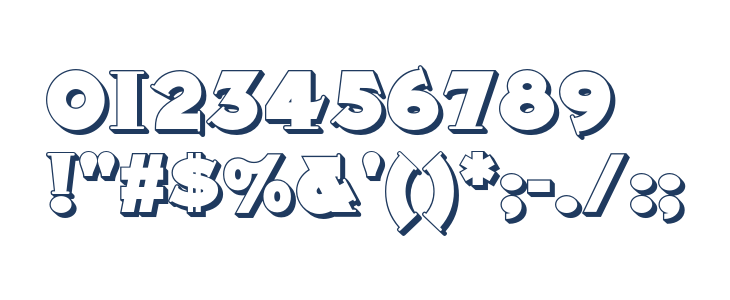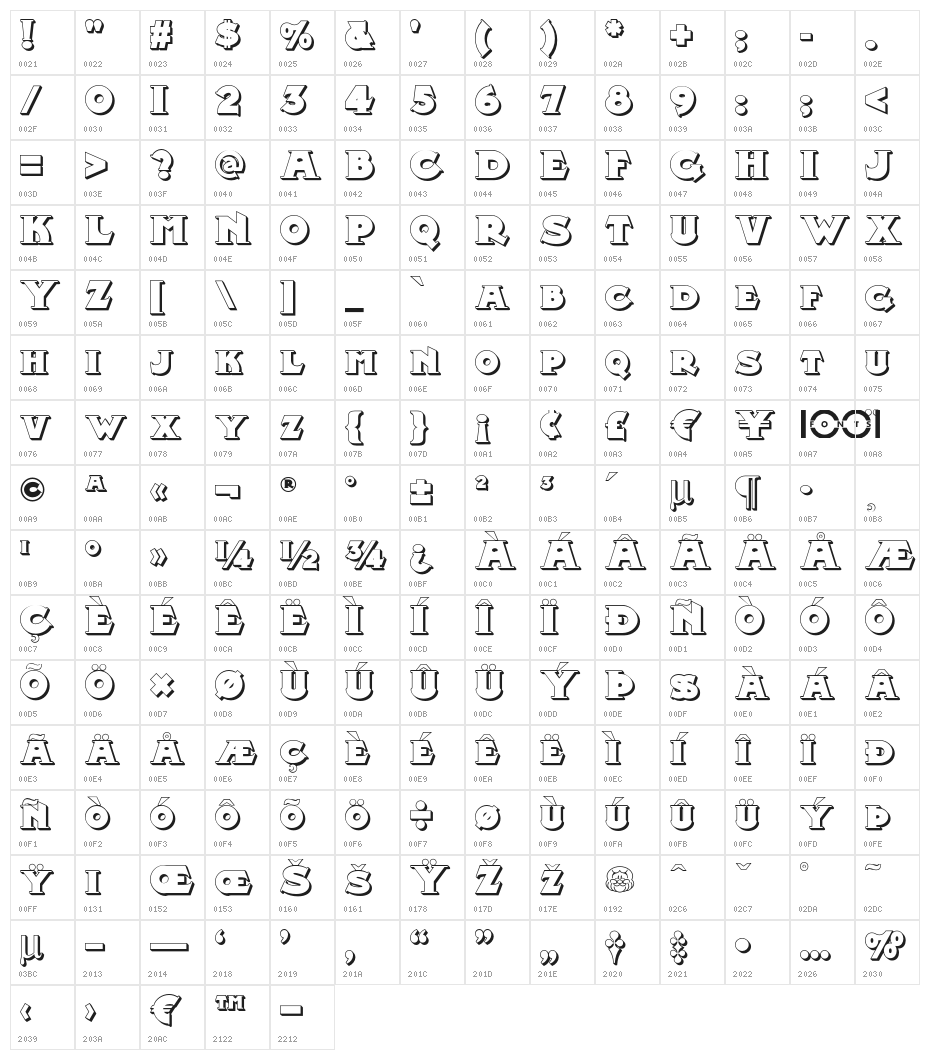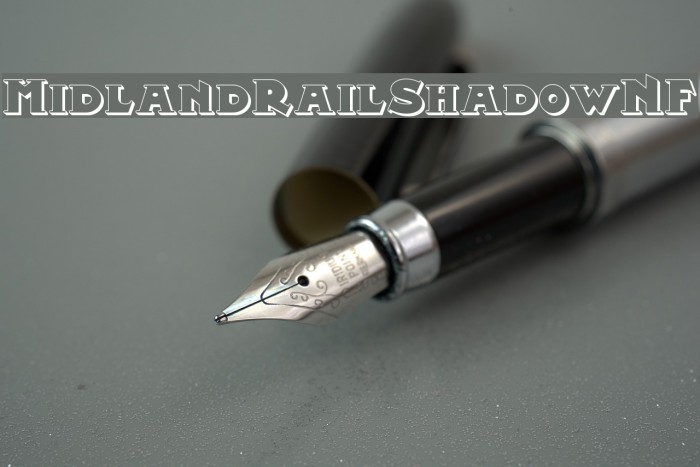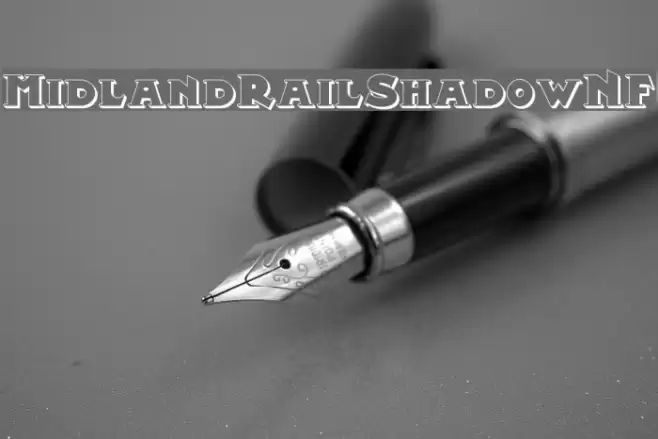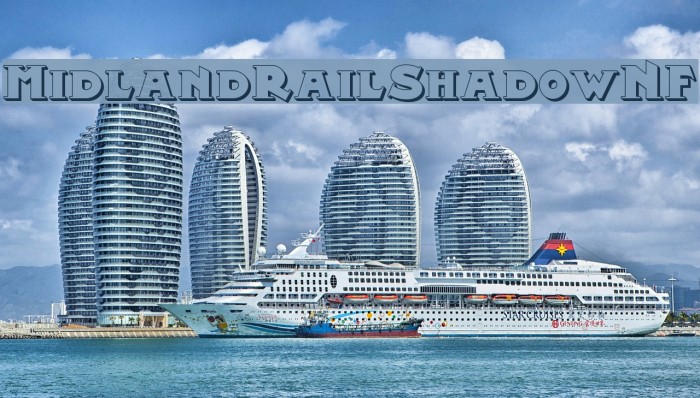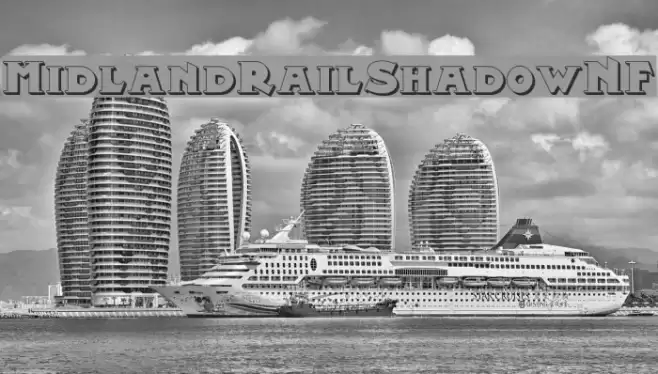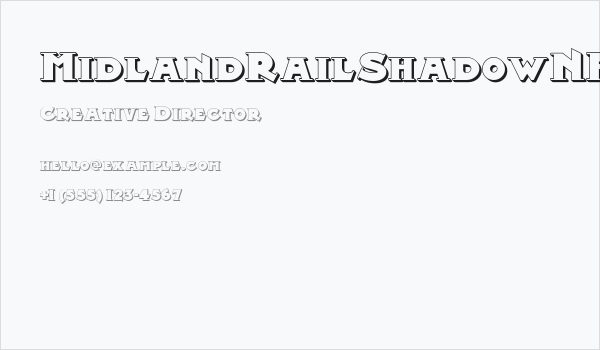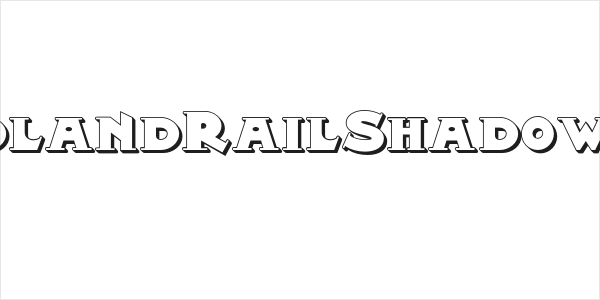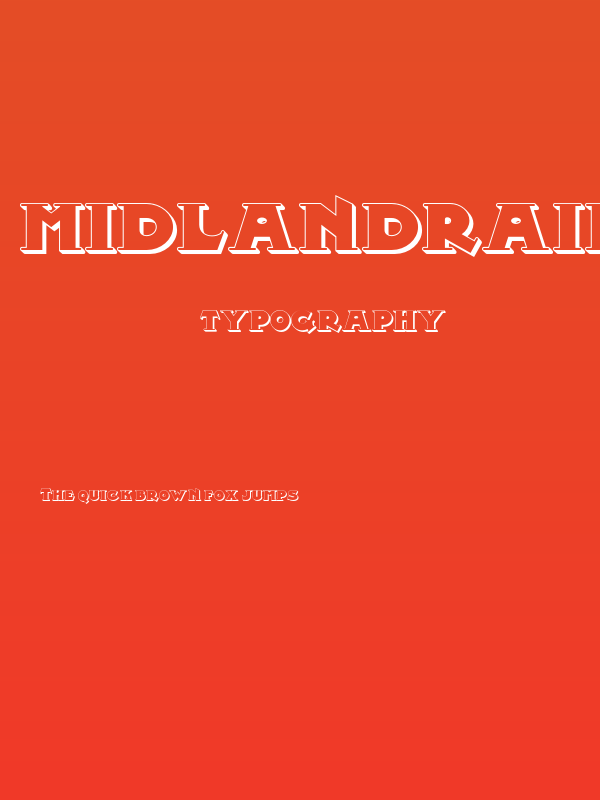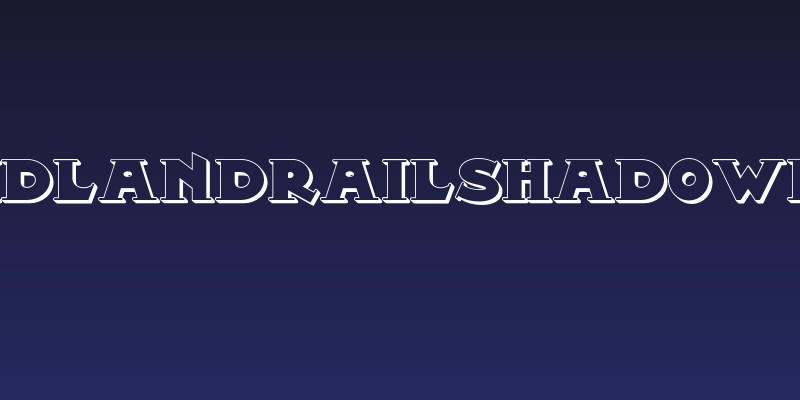
MidlandRailShadowNF Font
MidlandRailShadowNF Description
This font features a bold and striking design with a distinct shadow effect that adds depth and dimension to each character. The uppercase letters are robust and commanding, making them ideal for attention-grabbing headlines. The shadowing is consistent across all characters, providing a cohesive and uniform appearance. The numerals are equally bold, ensuring they stand out in any context. Special characters are included, maintaining the same shadowed style, which enhances the overall aesthetic. This font is perfect for projects that require a vintage or retro feel, with its classic yet playful design.
Overall StyleVintage
Proposed ProjectsIdeal for retro-themed posters, vintage branding, and eye-catching headlines.